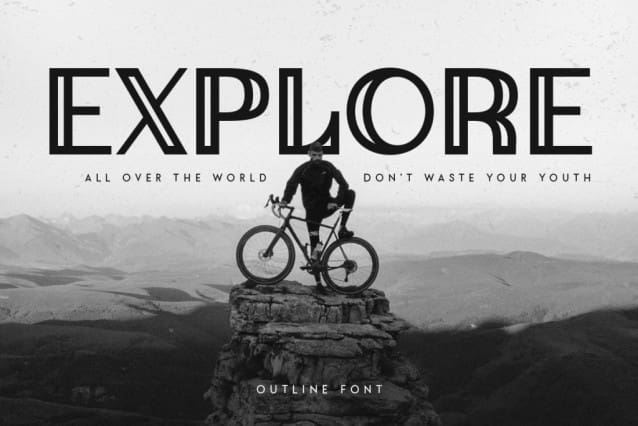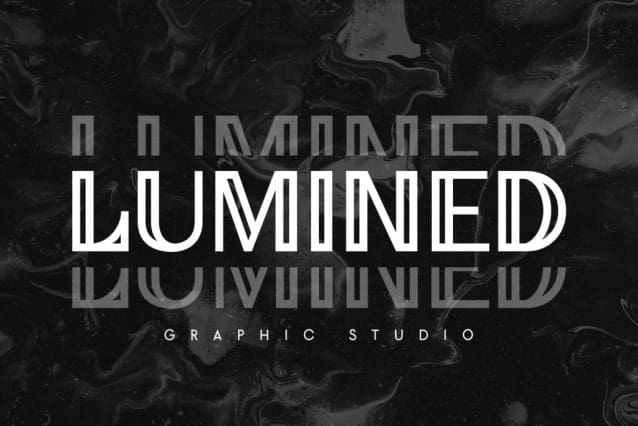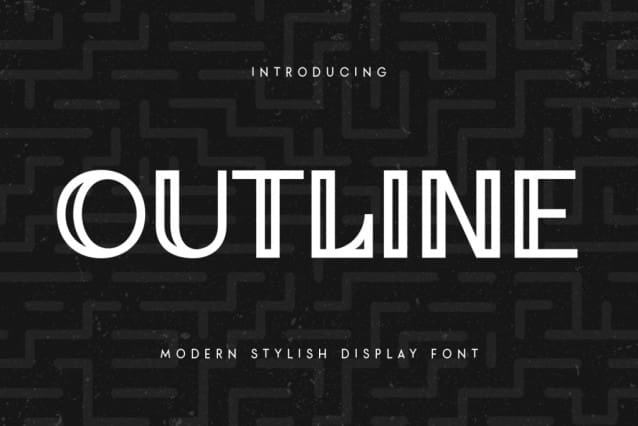
Outline Font
Outline Font A new Display Font that we created special for Headline, Title and more stand out typography needs. It’s so perfect to add your style and headline overview. And specially for Headline font, we crafted for unique style and modern feels so enjoy to create any project that will show your main idea out.